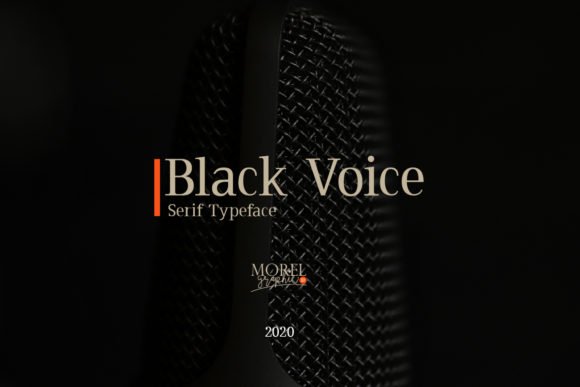
Unleashing the Power of Typography: Introducing Black Voice Font
Have you ever been working on a project, pouring your heart and soul into every detail, only to feel like something is missing? That’s when the perfect font comes in – a game-changer that elevates your design from good to great. For designers and creatives, finding the right font can be a daunting task, but we’re here to introduce you to a hidden gem that’s sure to take your projects to the next level.
Meet Black Voice Font, a sleek and sophisticated serif font that’s perfect for a wide range of projects. Its elegant and neat lettering makes it an ideal choice for designers who want to add a touch of sophistication to their designs. Whether you’re working on a logo, a brochure, or a website, Black Voice Font is sure to make your design stand out.
Key Features of Black Voice Font
- Size: The font family includes 6 styles, ranging from Thin to Extra Bold, each with its unique characteristics and uses.
- Unique Characteristics: Black Voice Font is designed to convey a sense of elegance and sophistication, making it ideal for use in luxury branding, high-end packaging, and premium digital products.
- Language Support: The font family supports a wide range of languages, including Latin, Cyrillic, and Greek scripts, making it a versatile choice for global branding and communication.
- Scalability: Black Voice Font is designed to scale well across various sizes and resolutions, ensuring that it remains legible and visually appealing even at small font sizes.
Black Voice Font Review
As a designer, I’ve had the chance to experiment with the Black Voice Font, and here’s my honest review.
- Unique aesthetic: The font’s bold, modern design makes it perfect for creating attention-grabbing headlines and titles.
- Highly legible: Black Voice Font is well-suited for body text, ensuring that your content is easy to read, even at smaller font sizes.
- Perfect for modern brands: Its sleek, sophisticated look makes it ideal for contemporary brands looking to project a cutting-edge image.
- Limited character set: Unfortunately, the font’s character set is somewhat limited, which may cause issues with certain languages or special characters.
- Not suitable for fine typography: Due to its bold, condensed design, Black Voice Font may not be the best choice for intricate typography or detailed text arrangements.
Overall, I think Black Voice Font is a solid choice for designers who want to add some edge to their projects. While it may have some limitations, its unique aesthetic and high legibility make it a great option for modern branding and visual identities.
Black Voice Font is commonly used in:
- Headings and titles for its bold and eye-catching appearance.
- Brand identities and logos for its unique and distinctive look.
- Marketing materials and advertisements for its ability to grab attention.